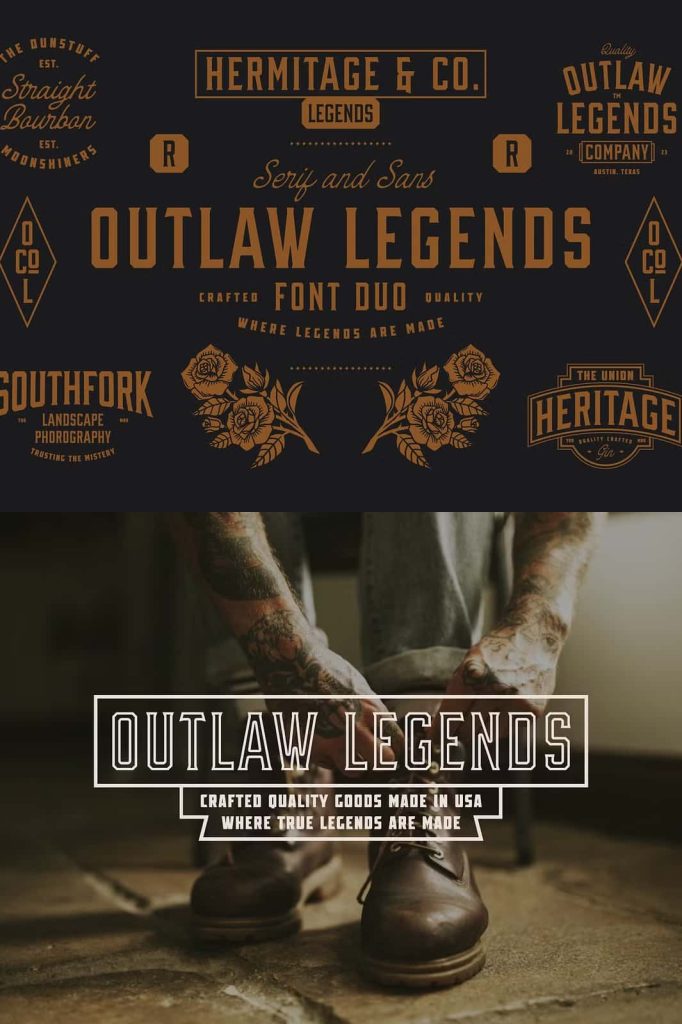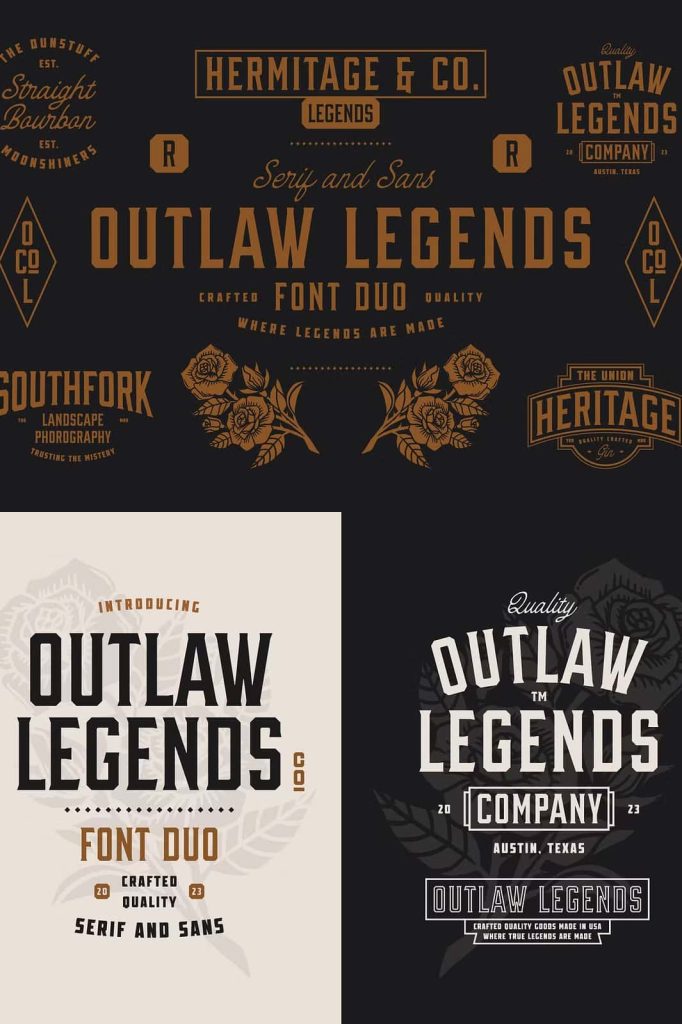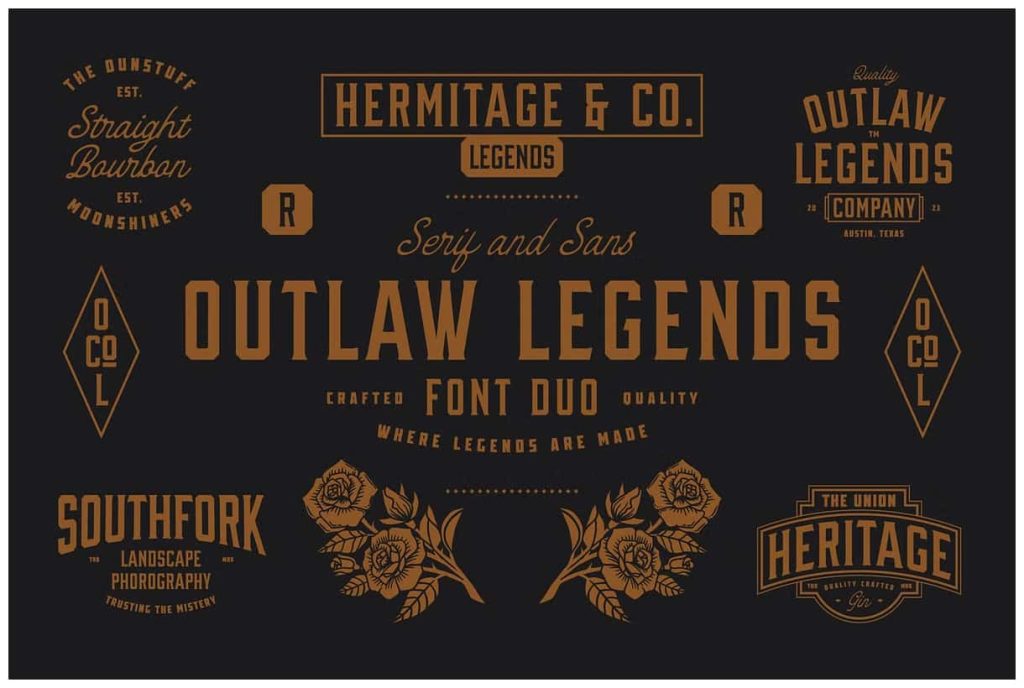
OUTLAW LEGENDS Font Duo + ExtraleastedMay 30, 2025Fonts Introducing the Outlaw Legends Font Duo – a captivating blend of a Serif font inspired by the industrial era Download